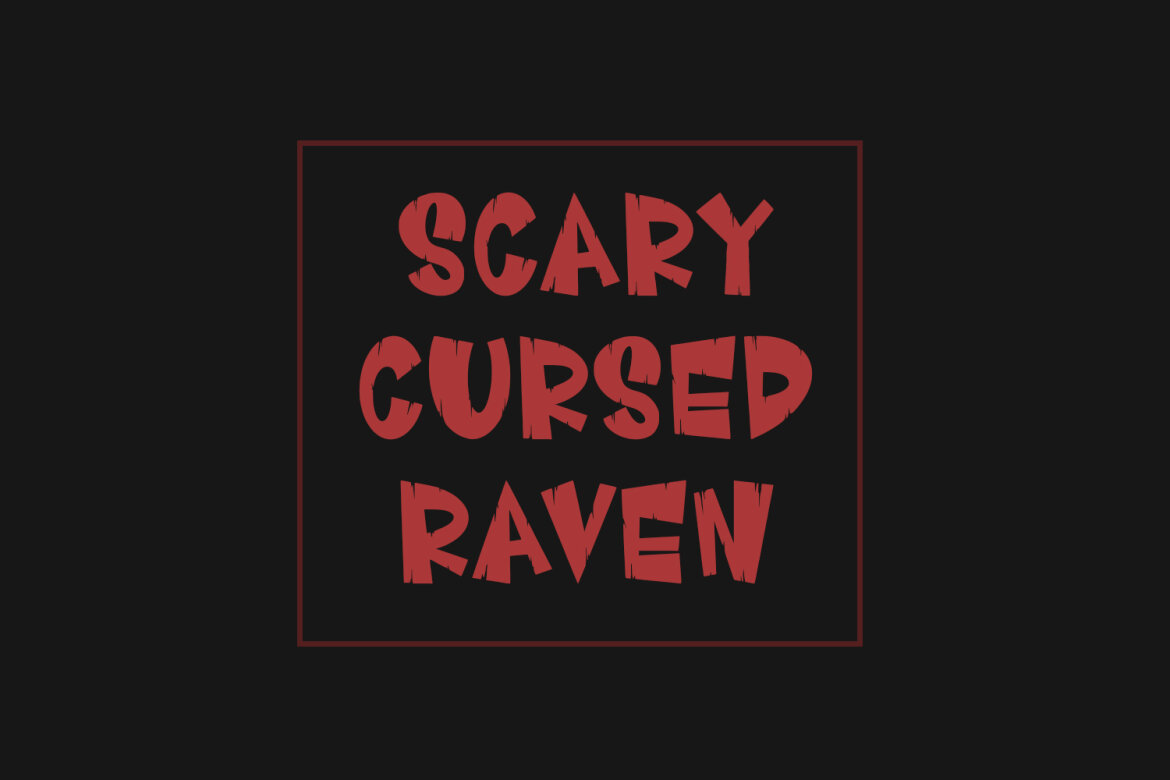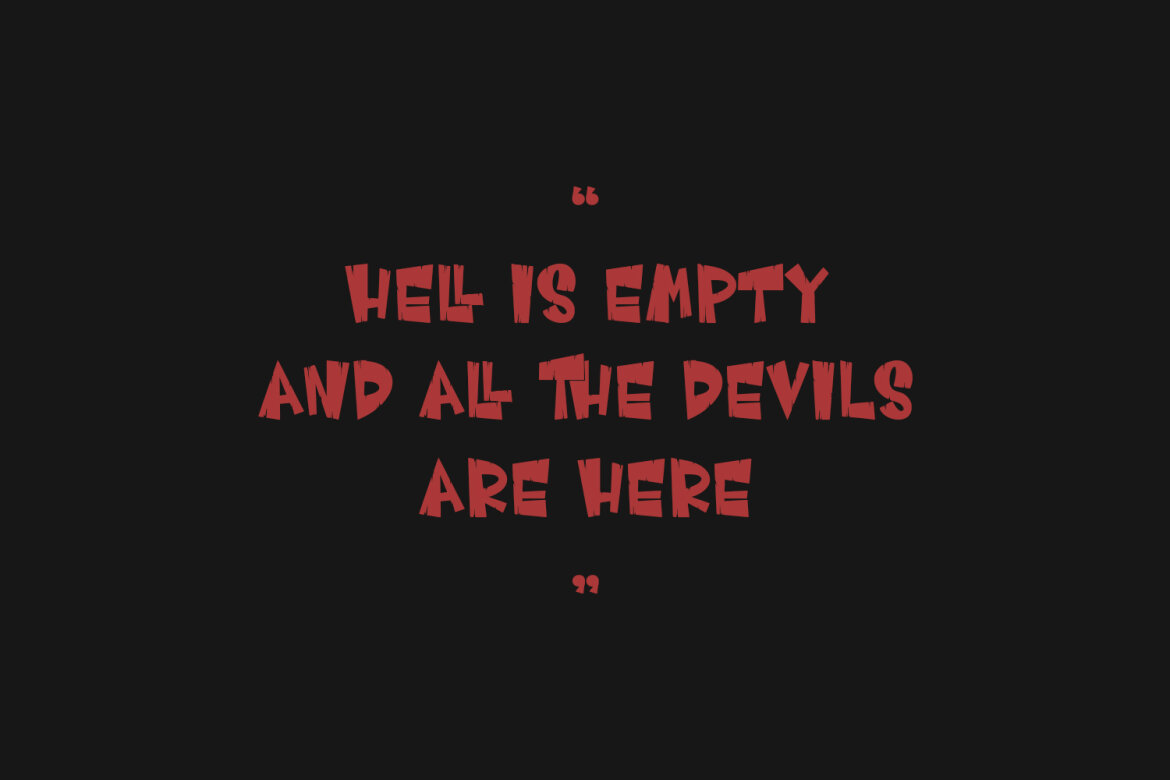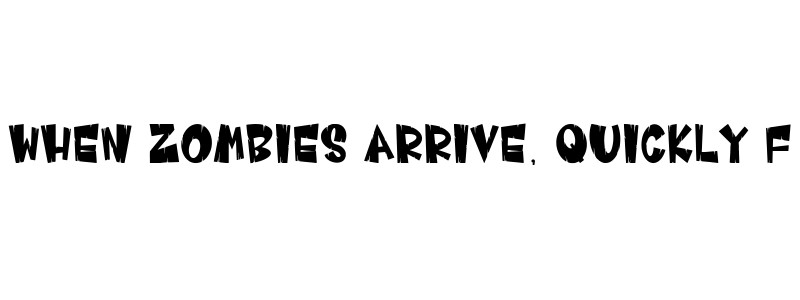
Lnomar Spooky FREE Display Font
Lnomar
Looking for the perfect font to create a chilling, spooky vibe. Lnomar is a unique display font that's perfect for Halloween, horror themes, or any project that needs a touch of eerie charm. With its rough, hand-carved look and uneven edges, this font captures the spirit of a haunted house or a scary story.
Lnomar comes with a full set of uppercase characters, numbers, and punctuation, so you'll have everything you need to create your next spooky masterpiece.
• Numbers and punctuation
• Multilingual Support
• Ligatures